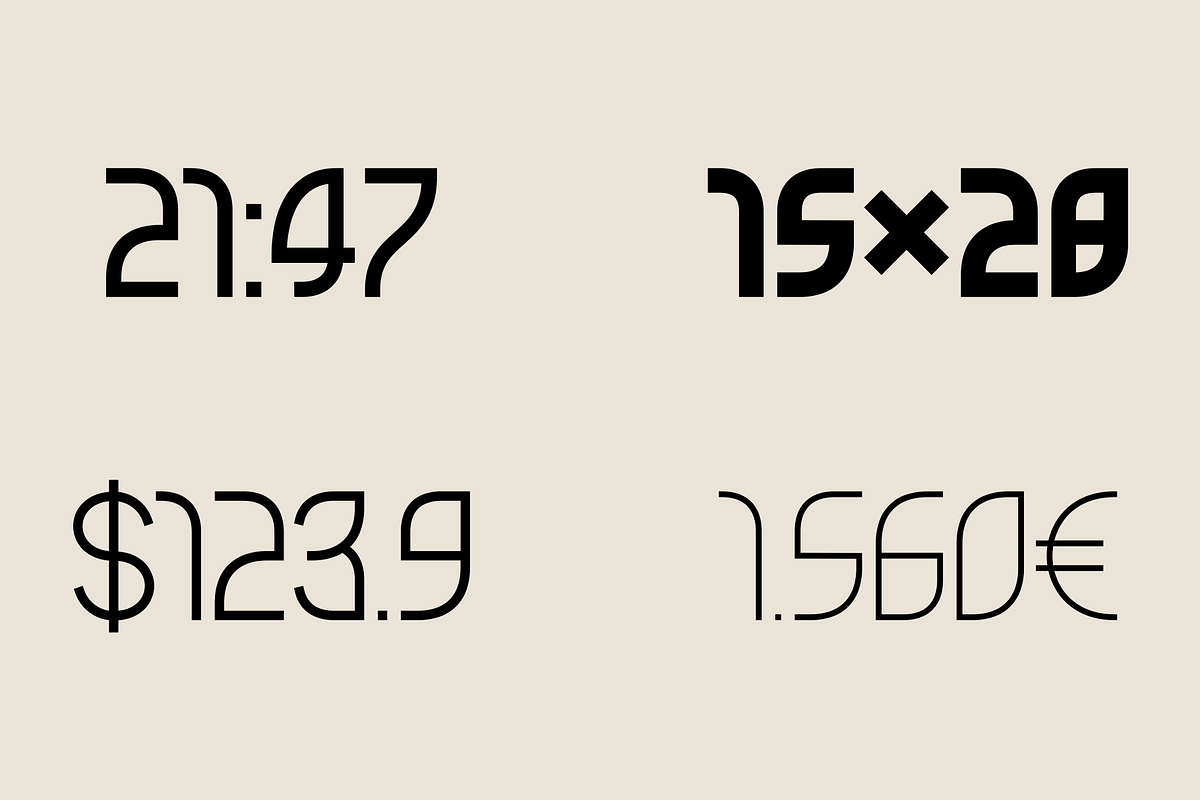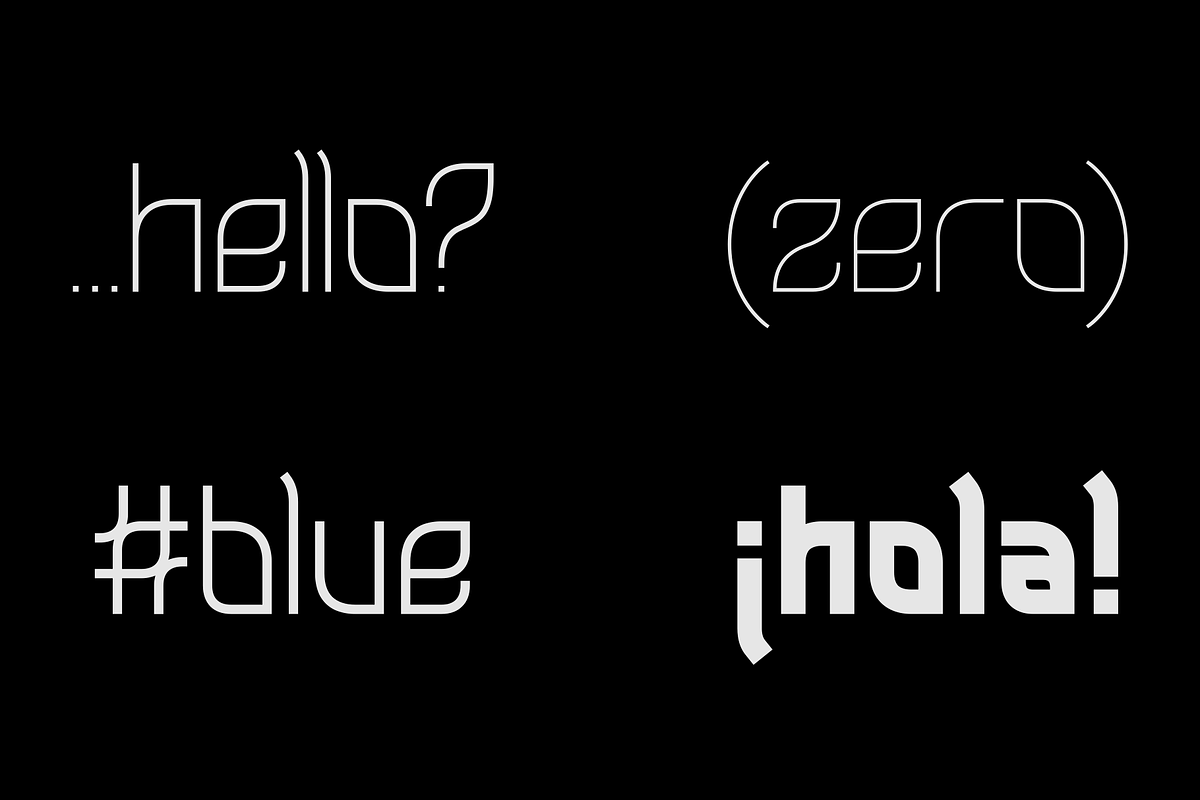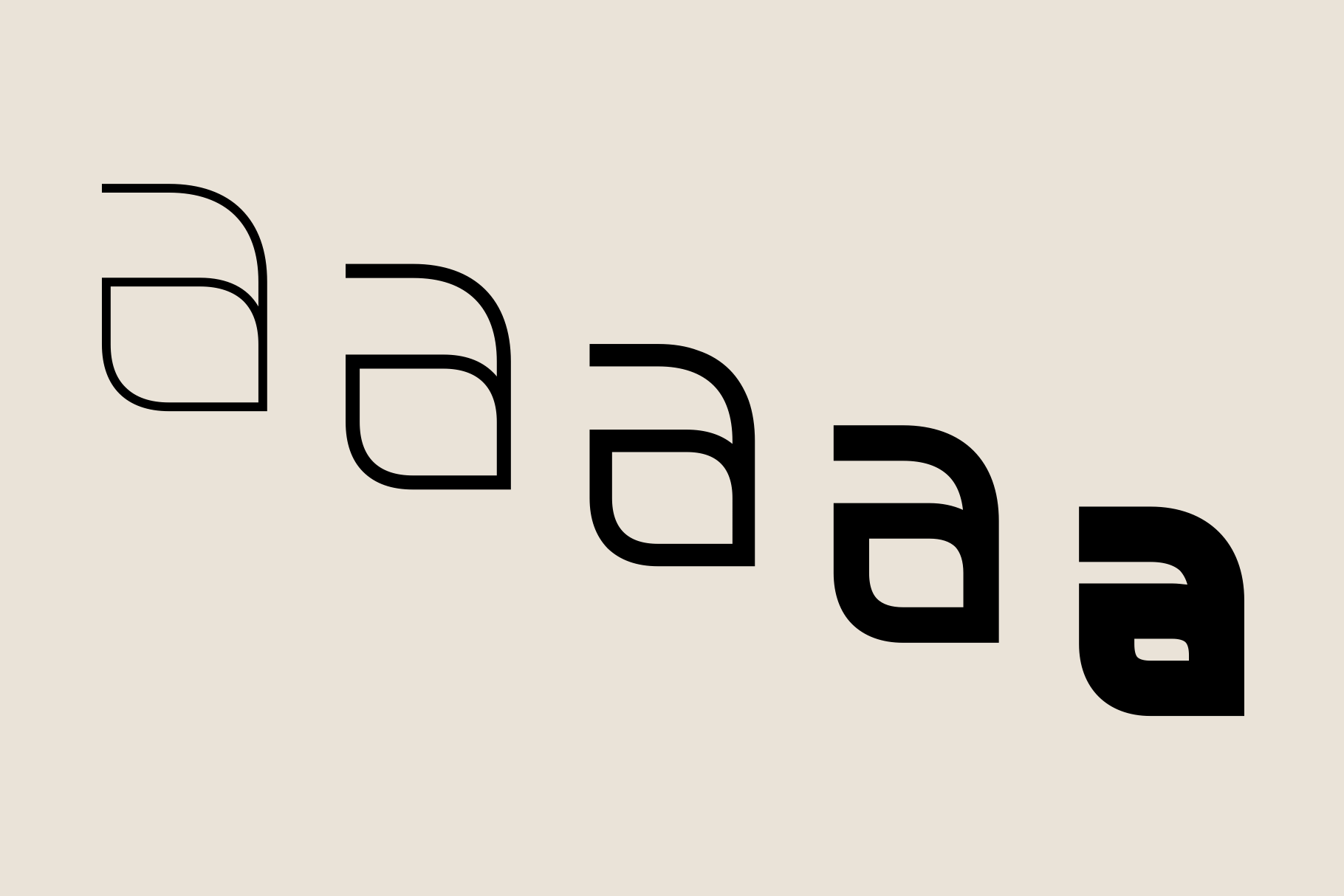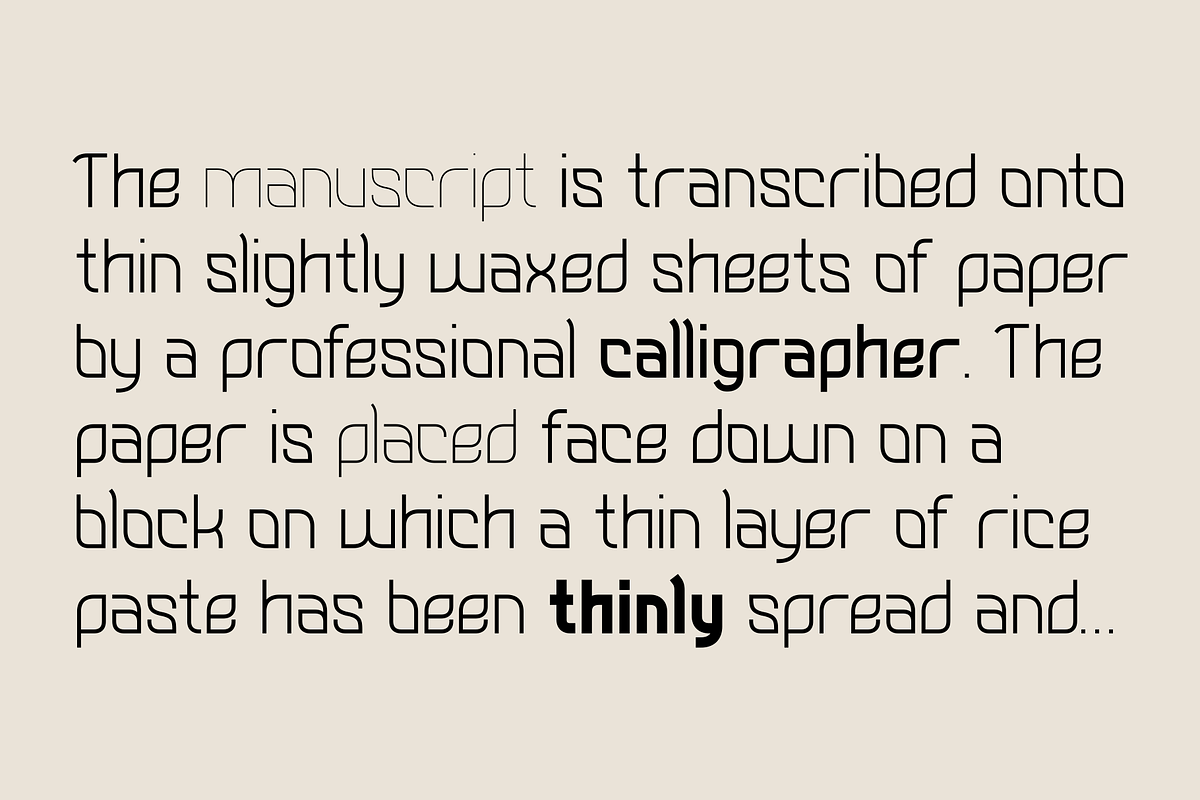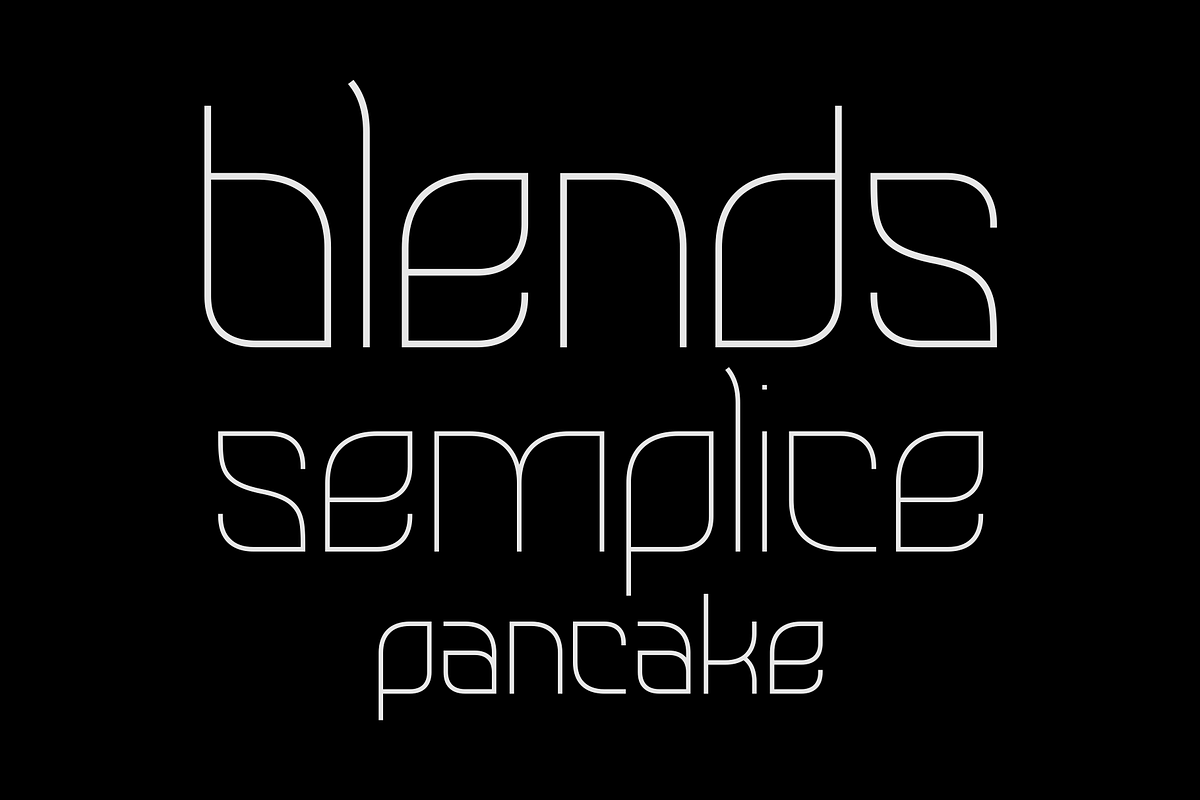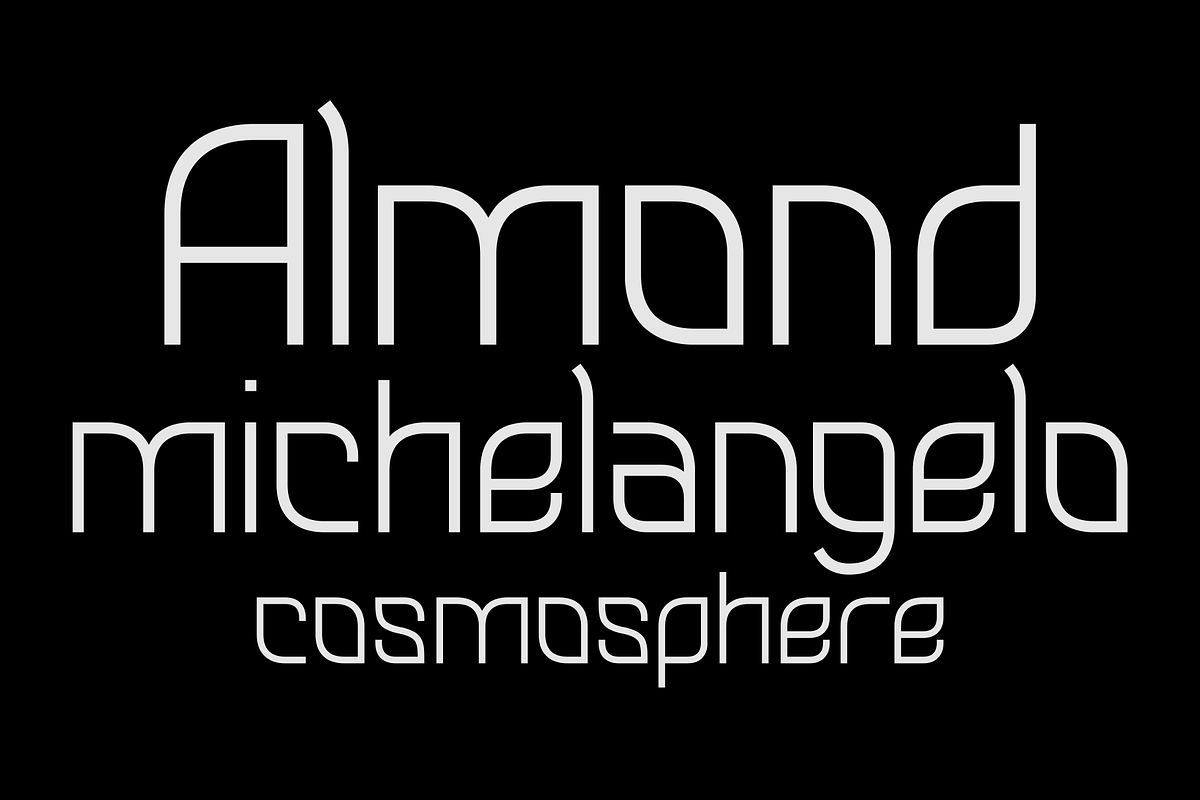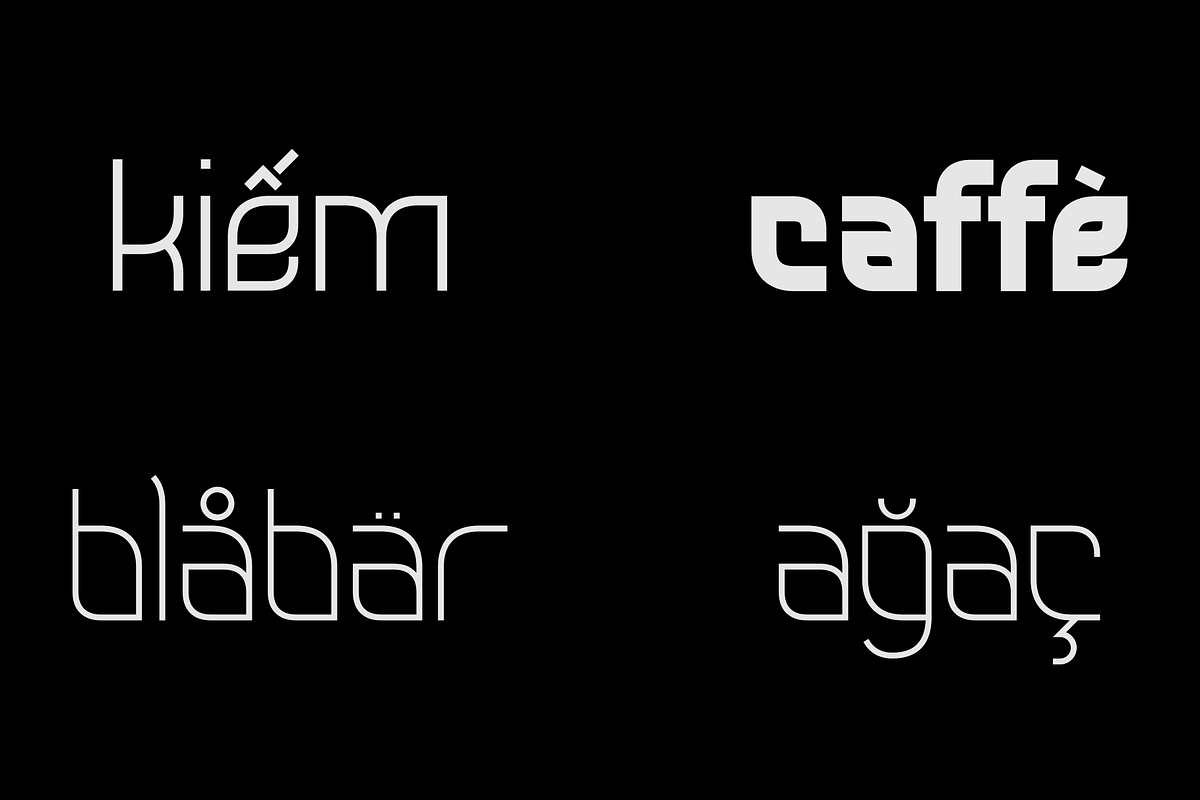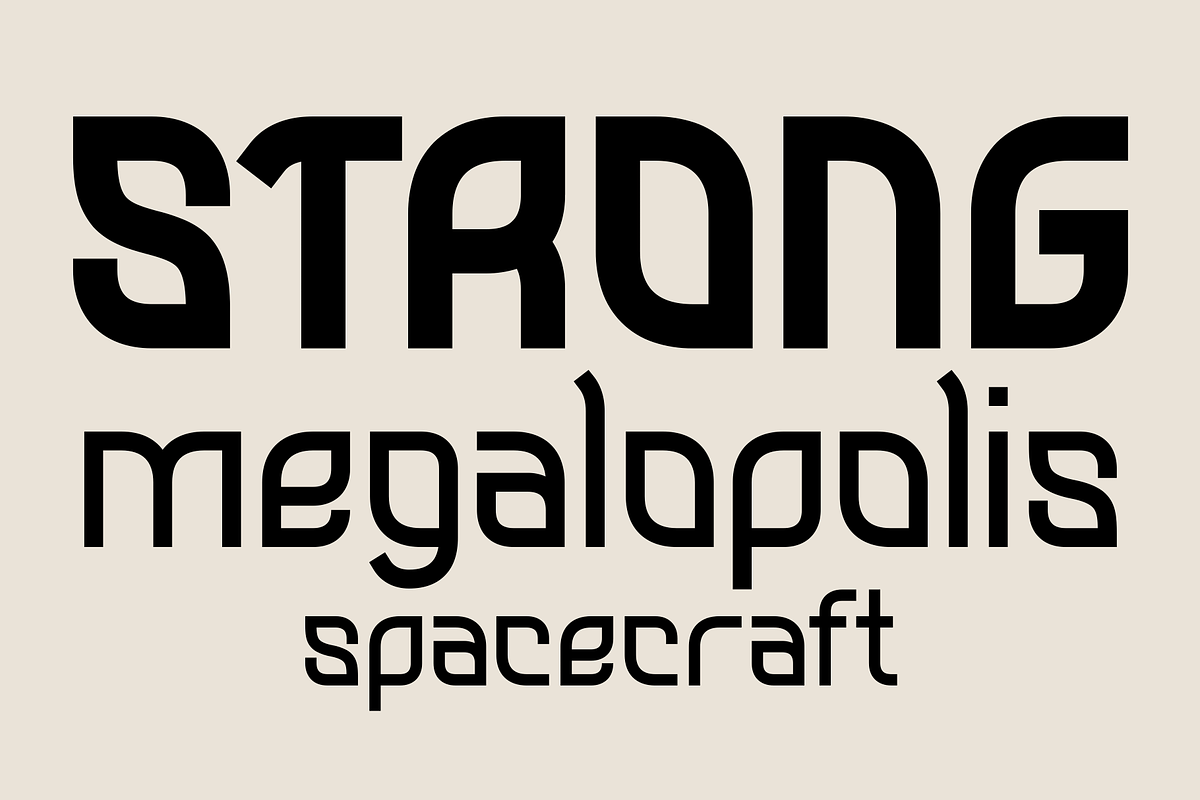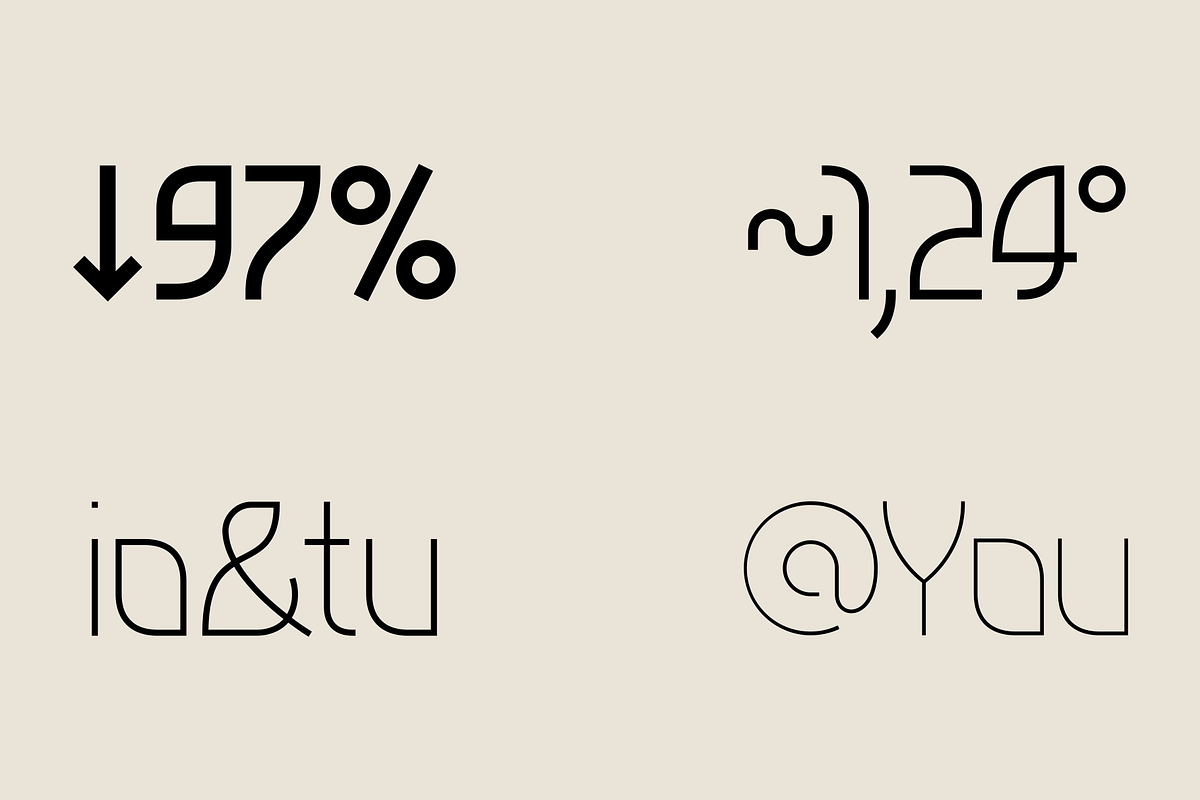
Mandorlato – Font Family
Mandorlato is a font family fruit of an exploration of the timeless almond shape.
• 114 Languages • 505 Glyphs • 5 Weights • 5 Styles